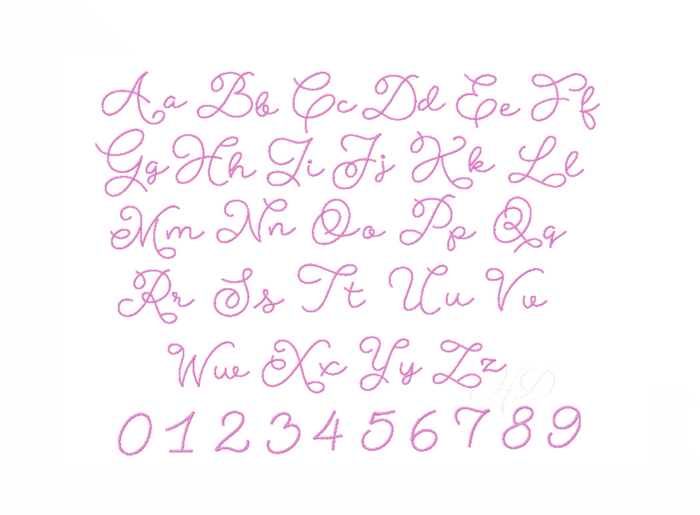
Bonnie Martha Satin Embroidery Font Package Small
The Bonnie Martha Satin embroidery font is for machine embroidery is a satin stitch embroidery font.
This file includes 52 letters in both uppercase and lowercase letters as well as numbers 0-9.The sizes included in this package are as follows: